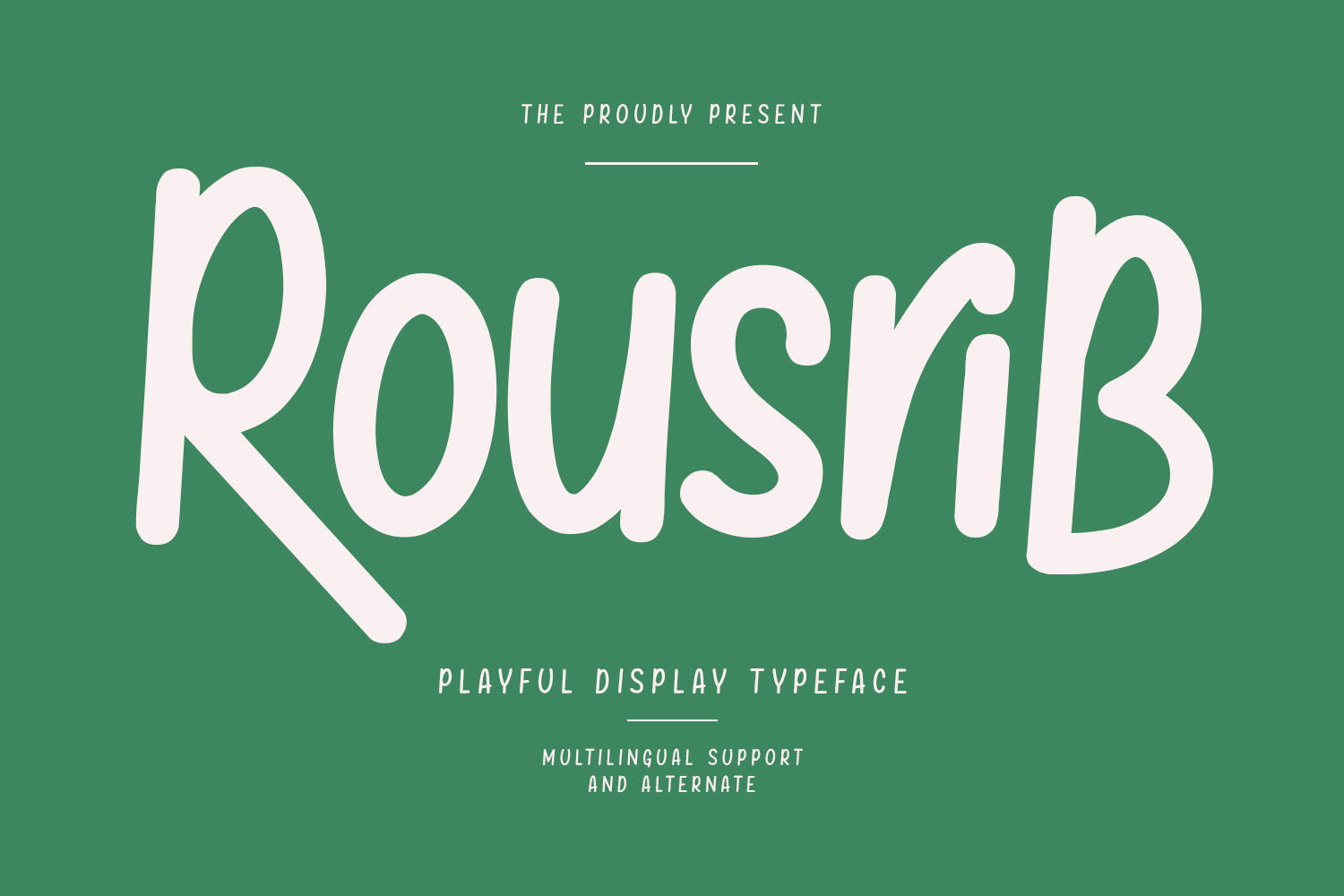
Rousrib Font
Rousrib font. Heavy stroke, fun character with a bit of ligatures. To give you an extra creative work. Rousrib font support multilingual more than 100+ language. This font is good for logo design, Social media, Movie Titles, Books Titles, a short text even a long text letter and good for your secondary text font with script or serif. Make a stunning work with Rousrib font.